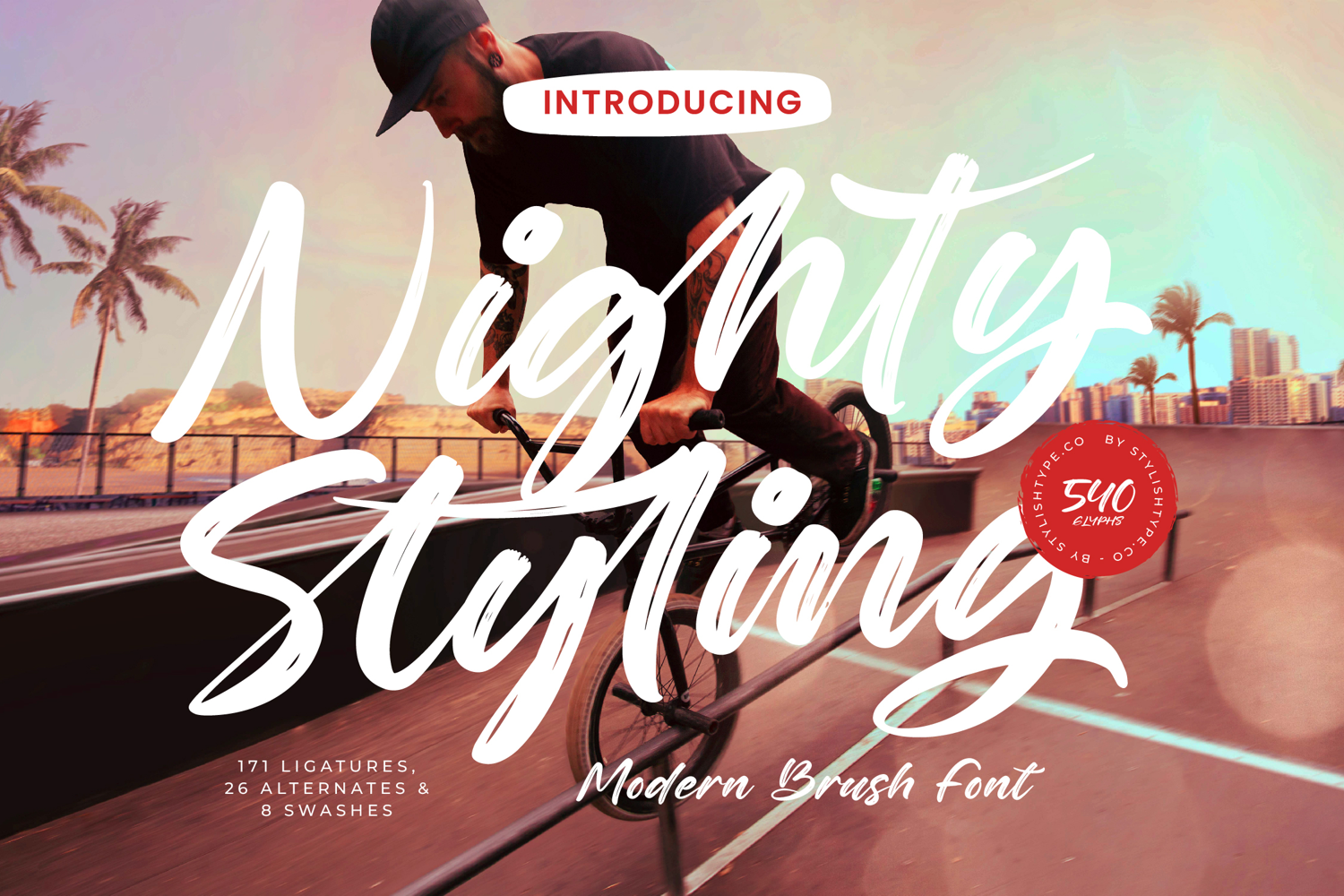
Nighty Styling - Modern Brush Font
Nighty Styling is a modern brush font that captures energy, boldness, and contemporary street style. With expressive brush strokes, dynamic ligatures, and authentic handwritten texture, this typeface is perfect for projects that demand impact, creativity, and a modern edge. Featuring 171 ligatures, 26 alternates, and 8 swashes, Nighty Styling provides designers with endless options to create bold, customized lettering compositions.
This font thrives in branding. Perfect for logos, streetwear, sports brands, lifestyle products, and creative businesses, Nighty Styling communicates confidence and originality. Its bold brush design ensures that branding projects feel powerful, stylish, and unforgettable, making it ideal for trend-driven industries.
In editorial and publishing, Nighty Styling adds attitude and personality. Magazines, posters, album covers, and event flyers benefit from its urban brush energy. It delivers editorial layouts that are both striking and authentic, ideal for designs that target modern youth culture.
For web typography, this font integrates smoothly across blogs, e-commerce sites, creative portfolios, and social media content. Its expressive brush strokes guarantee that digital media projects stand out with bold style and originality, making it perfect for brands seeking to connect with modern audiences.
Nighty Styling is also powerful in advertising and marketing. From posters, billboards, and campaigns to packaging and promotional designs, it ensures that advertising projects remain eye-catching, dynamic, and stylish, attracting attention instantly.
The font is also suitable for event and product design. Its brush style works beautifully for music festivals, sports events, lifestyle campaigns, and merchandise branding, giving designs a raw, creative, and contemporary look.
In packaging design, Nighty Styling shines on streetwear apparel, food & beverage products, energy drinks, and creative goods. Its handwritten brush feel ensures that packaging communicates power, energy, and individuality, making products more appealing to modern consumers.